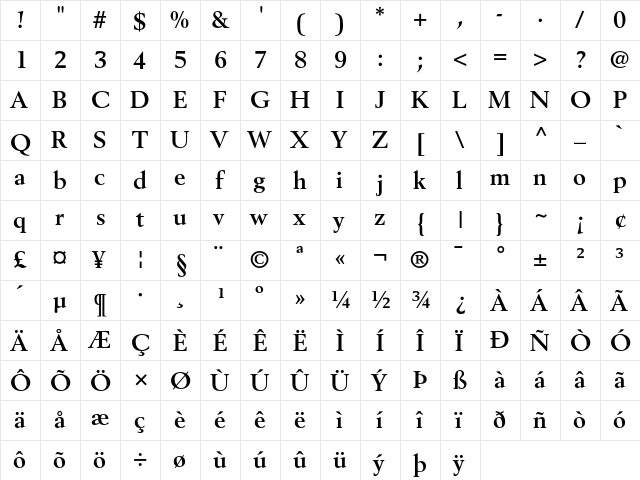
Berling Bold Font Preview
Berling Bold
Design Context for Berling Typeface
Berling is a composed and adaptable typeface that performs quietly and consistently across a wide range of design contexts. Its bold stroke weight gives it real presence on the page.